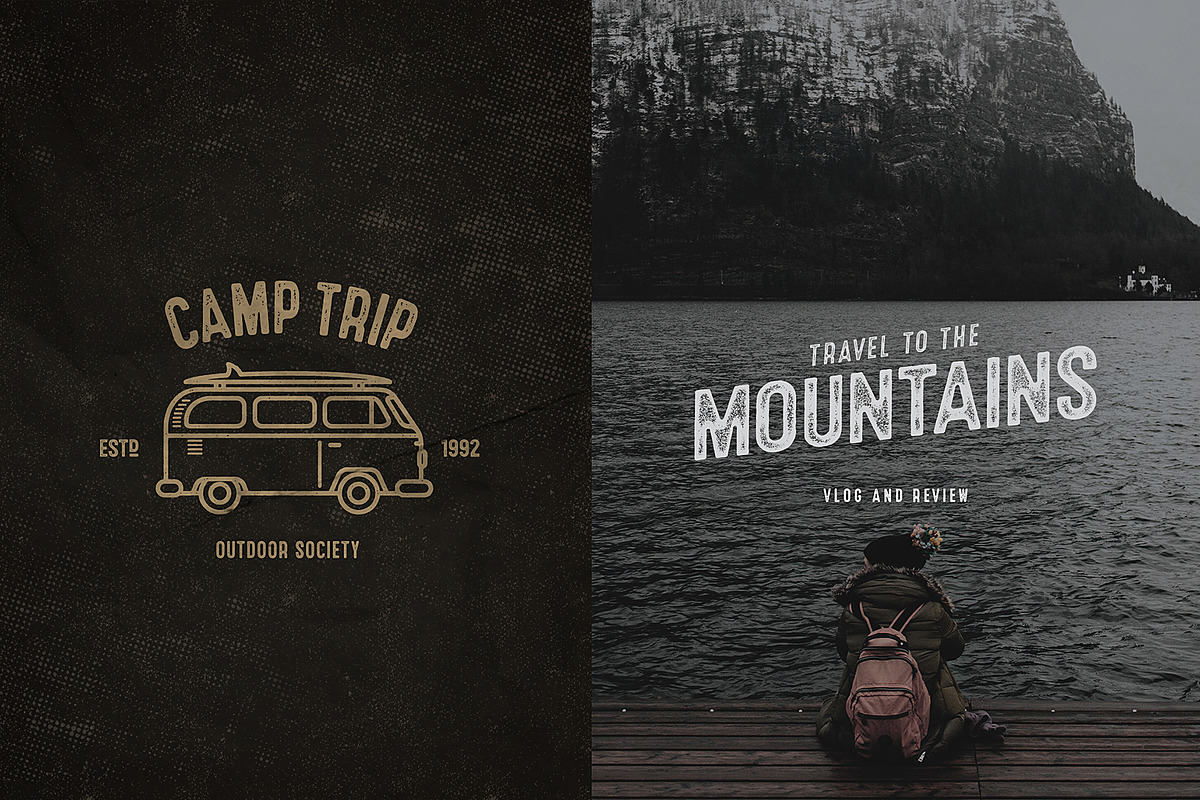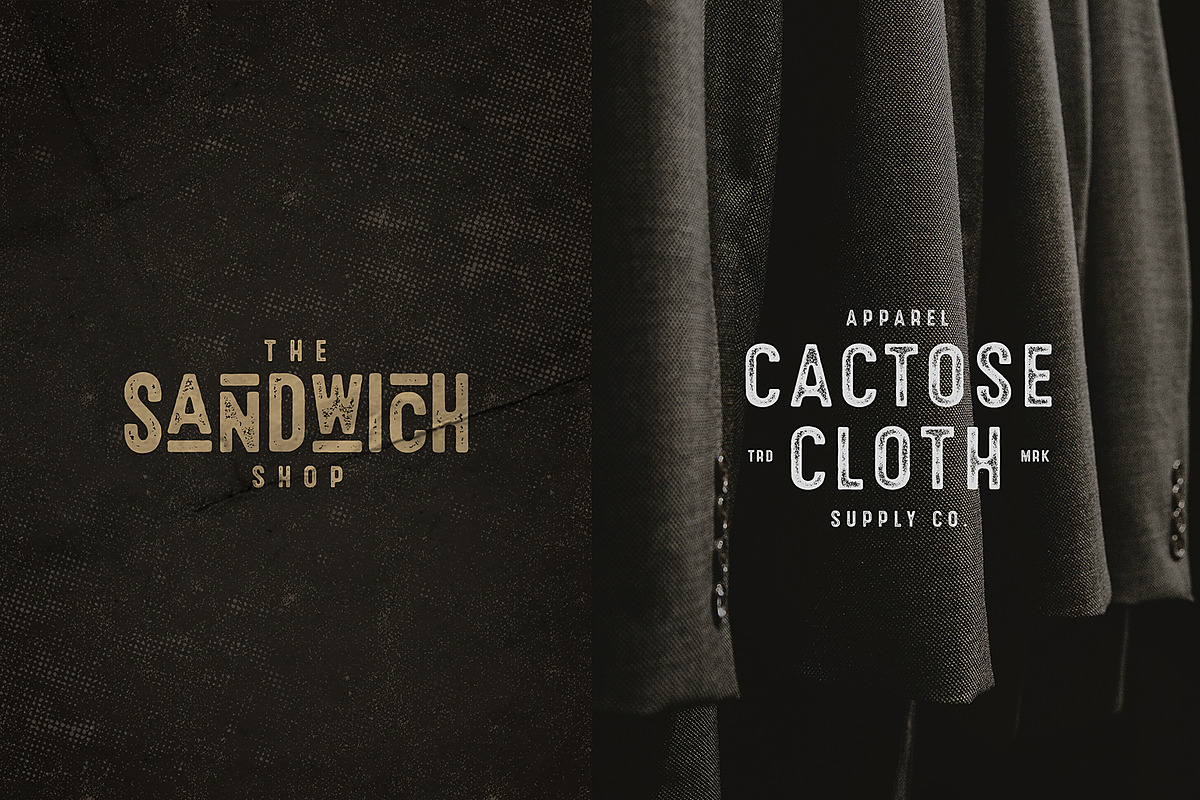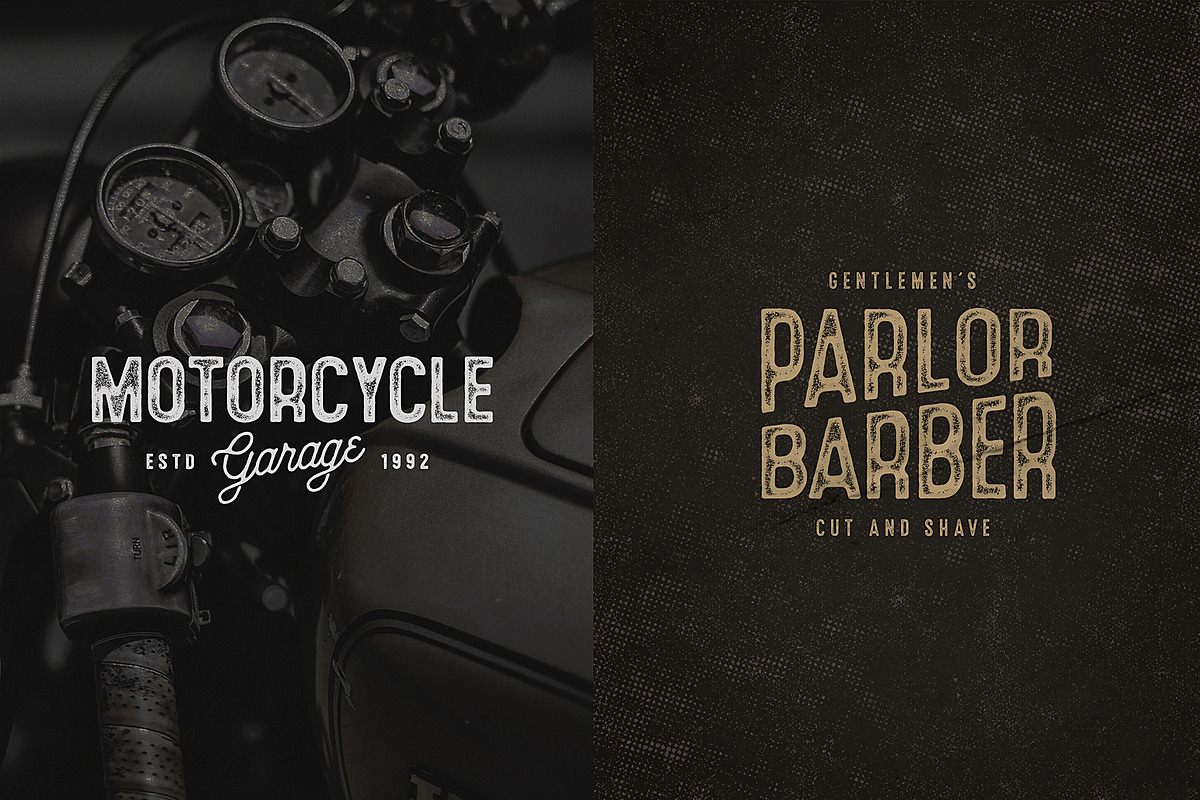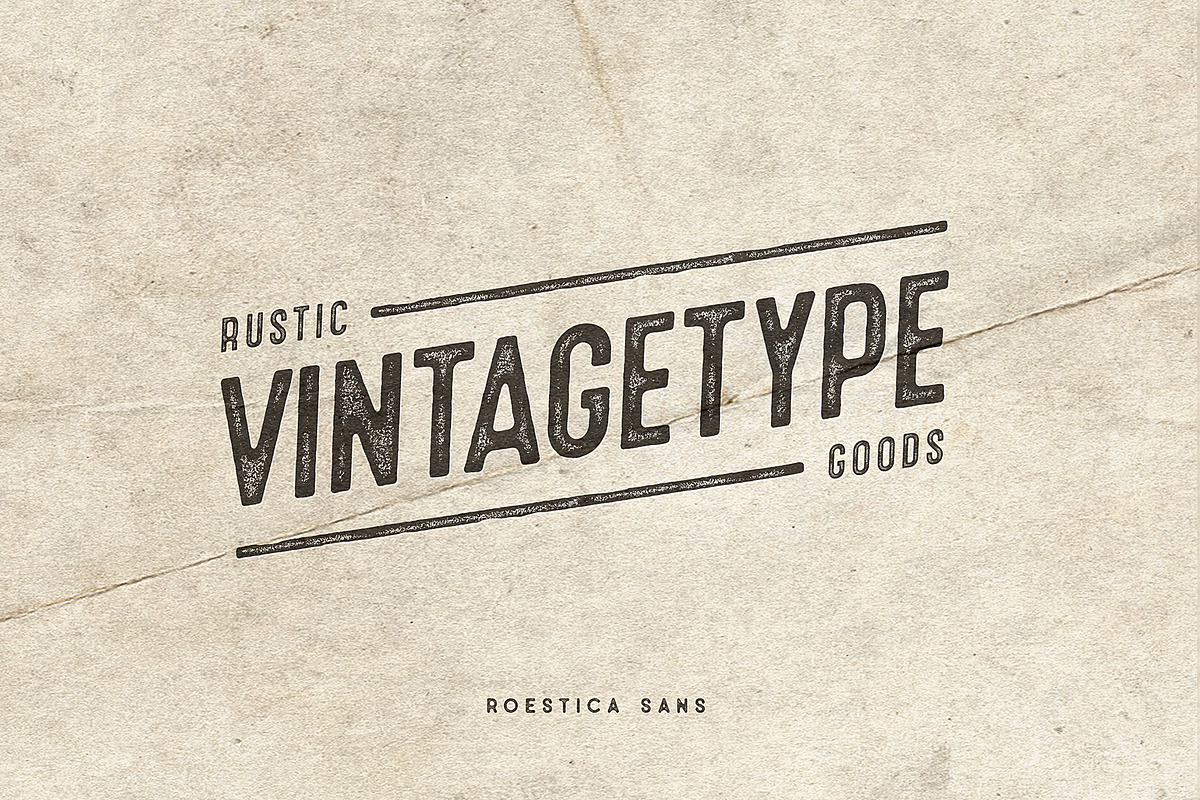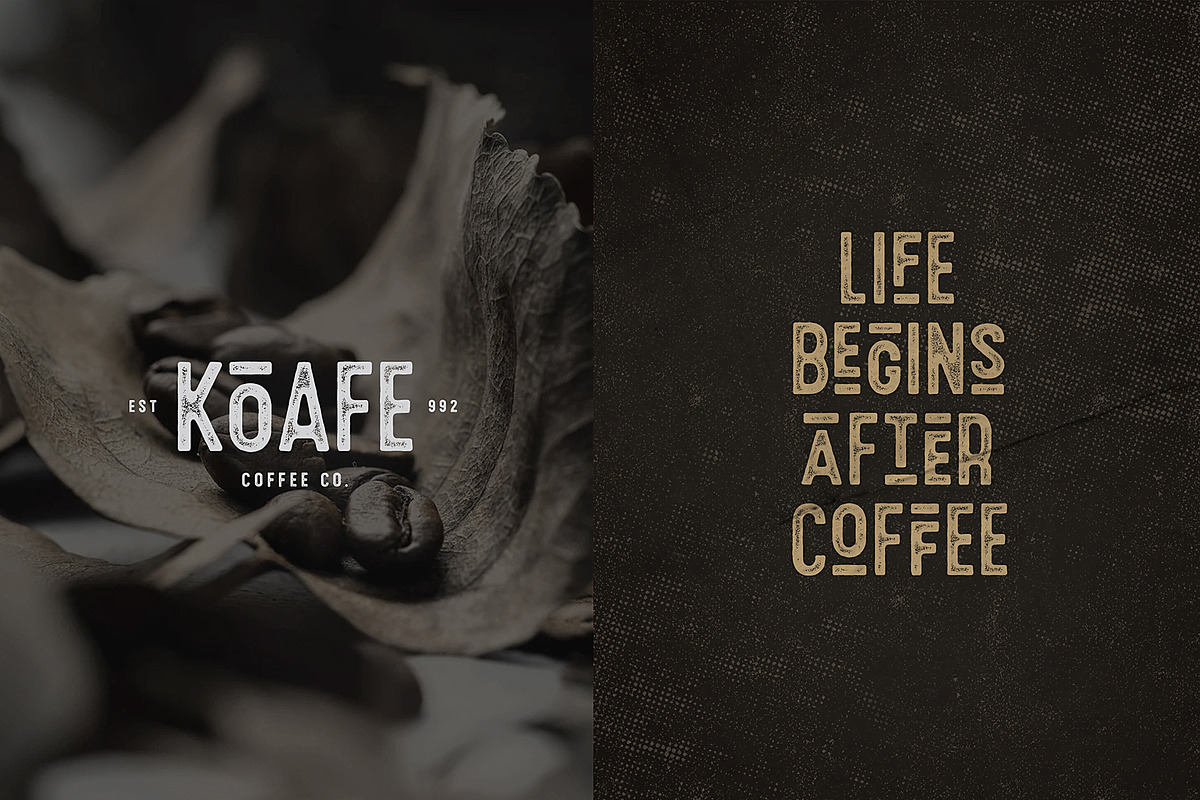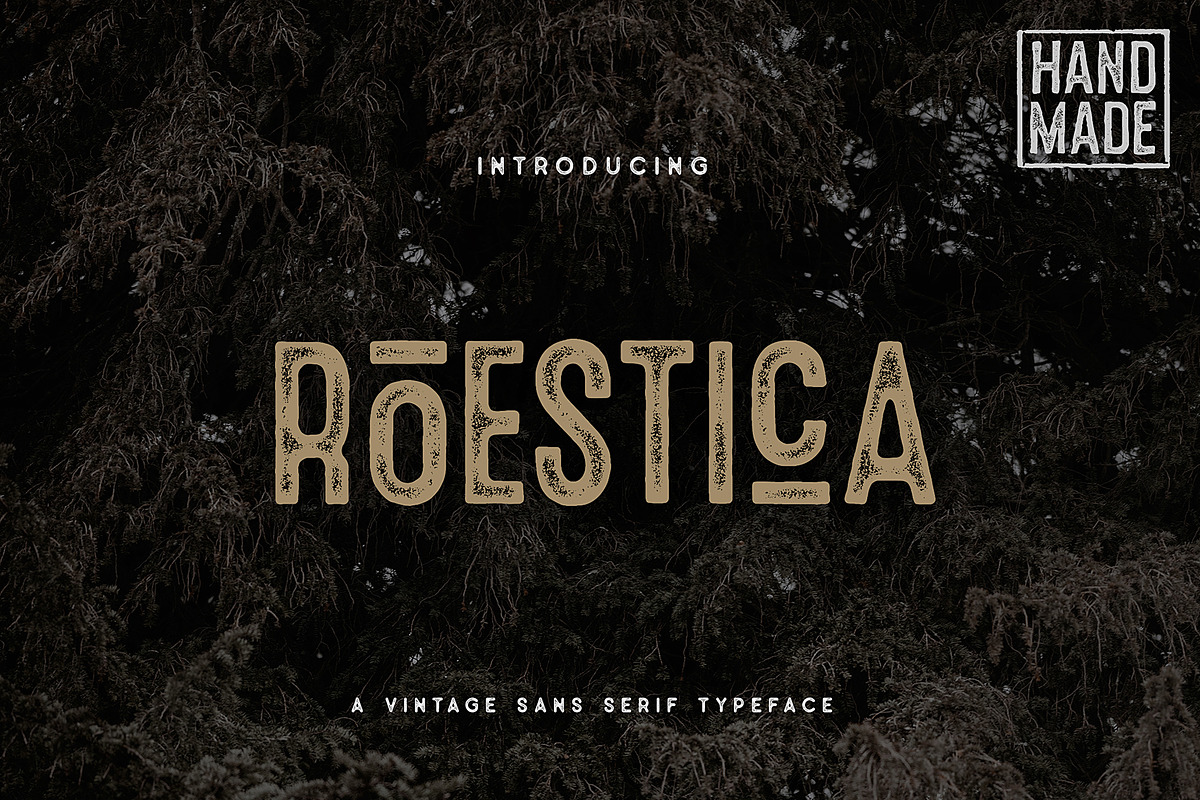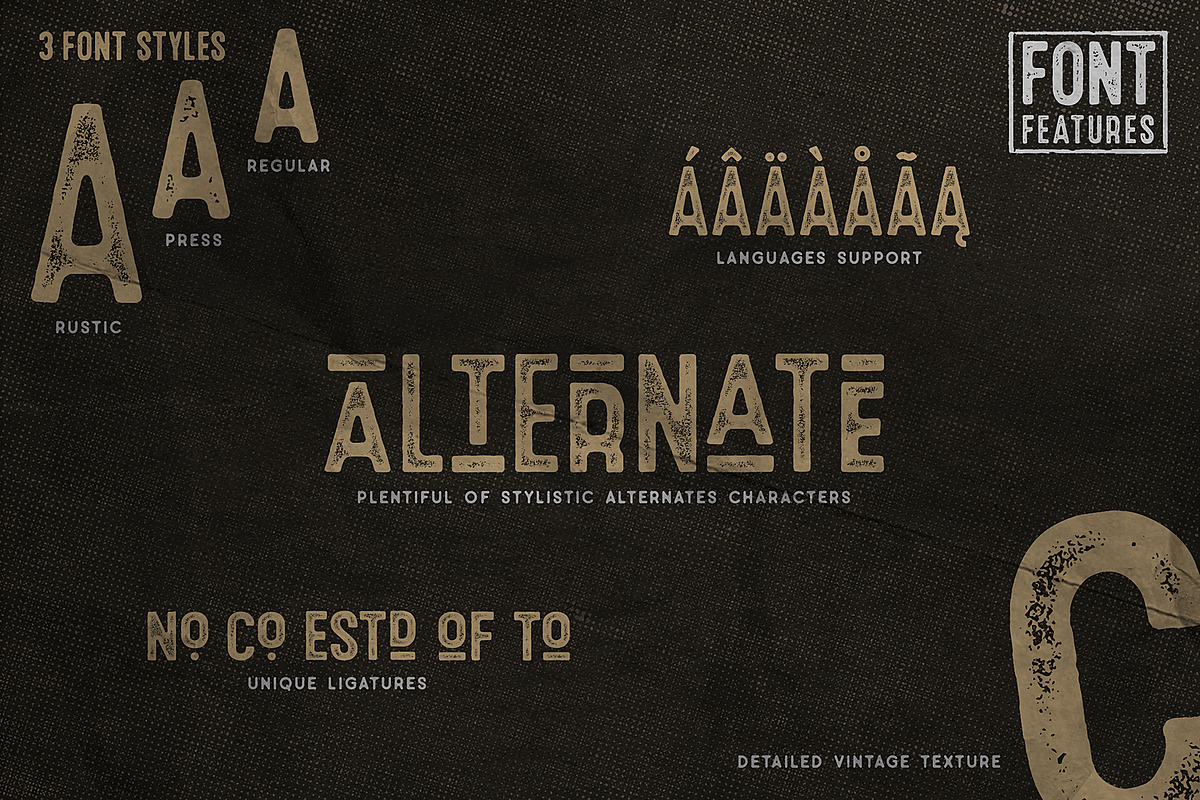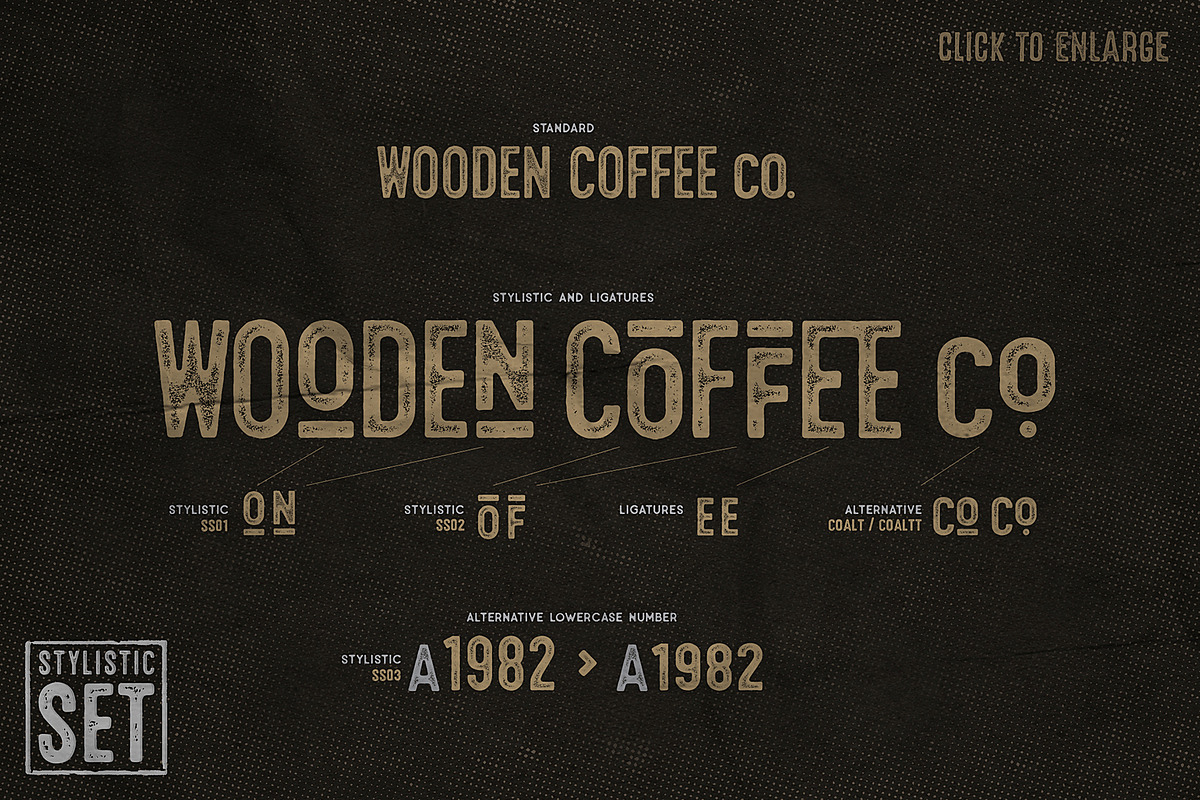
Roestica Vintage Sans Typeface
Roestica Vintage Sans Typeface with 3 Styles
Roestica Sans Typeface is a handcrafted sans vintage font. Roestica is an essential of vintage typeface. Roestica uses rounded edge, rough and inked, so this sans typeface gives a feel of vintage, classic, old, handmade looked like because the process of the font itself through scanning process and carved digitally, the texture itself is well crafted and added carefully in each character. Come with many alternates stylistic character and ligature, so that you have more options. I think this font is perfect for people looking additional font for vintage aesthetic.
Come with 2 font styles, Roestica Regular (Plain), Roestica Press and Roestica Rustic.
Suitable for any graphic designs such as branding materials, t-shirt, print, business cards, logo, poster, t-shirt, photography, quotes, youtube thumbnail .etc
A perfect typeface to pair with Old Pines Typeface and Anchorage Script Typeface
Alternates Lowercase Number
International Language
- Come with many alternates stylistic character and ligature, so that you have more options.
Roestica Vintage Sans Typeface by Wandery Supply fits naturally into Branding, posters, packaging, typography.